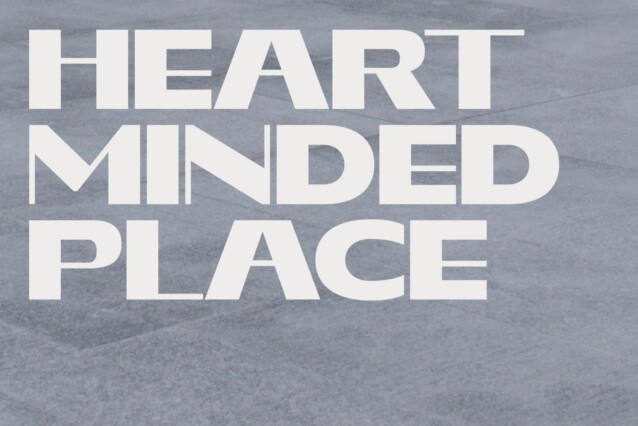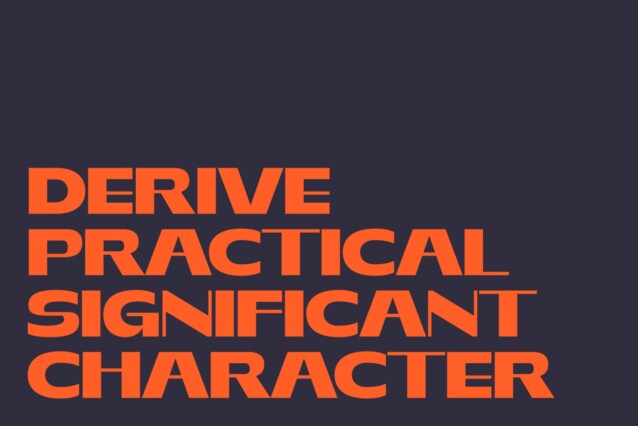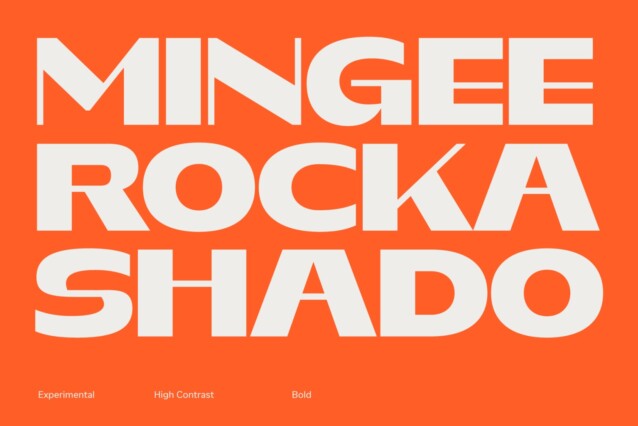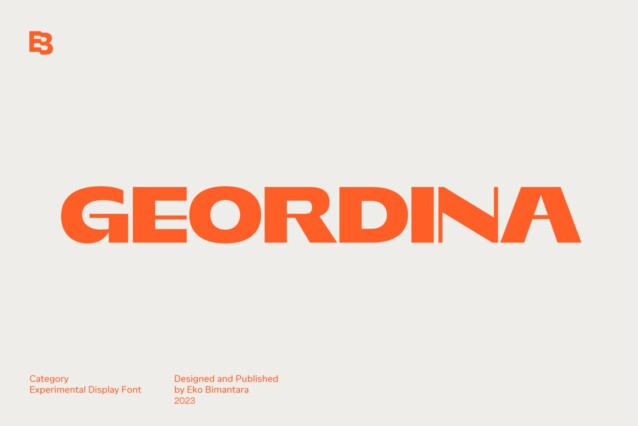
Geordina Font
Geordina Font is a strong and bold sans font exudes strength and confidence with its clean lines and thick letterforms. It is an ideal choice for various design applications that require a standout display font. Geordina excels in display use, large-size applications, headers, and diverse layout designs, making it perfect for logos, websites, brand identities, product packaging, and a wide spectrum of graphic design and creative projects. Its unique and high-contrast features set it apart, ensuring that Geordina makes a bold and distinctive statement in your designs.